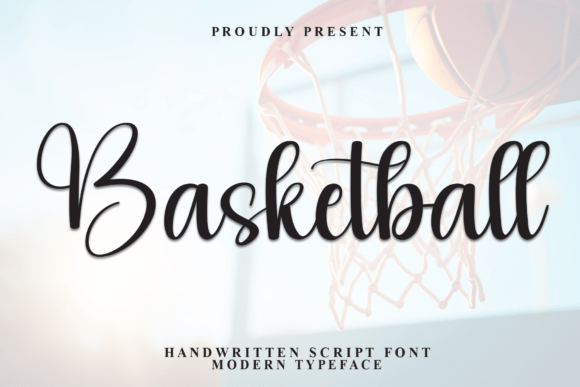
Unleash the Playfulness of Basketball Font in Your Designs
Have you ever been inspired by the sound of a basketball bouncing on the court, or the thrill of watching a slam dunk in slow motion? For designers, those moments can spark creativity and fuel our passion for crafting unique visual experiences. One way to capture that same energy and playfulness in our designs is by using a stylish handwritten script font – Basketball Font.
This elegant and charming font is perfect for adding a personal touch to invitations, branding, and social media. Its flowing curves and natural rhythm bring warmth, sophistication, and creativity to any project, making it a valuable tool for designers looking to elevate their work. With Basketball Font, you can infuse your designs with a sense of joy and spontaneity that’s hard to replicate with other fonts.
Basketball Font Key Features
- Font Family: Basketball Font is a unique, hand-drawn font designed specifically for sports and action-related graphics.
- Font Size: The font is designed to be highly legible at various sizes, with optimal results at 24-48 points for headings and 12-24 points for body text.
- Unique Characteristics: The font features bold, dynamic letterforms with a distinctive ‘swash’ style, perfect for adding a touch of sports-themed flair to designs.
Basketball Font Review
I recently had the chance to work with the “Basketball Font” and I have to say, it’s a mixed bag.
- Unique aesthetic: The font has a distinctive, playful feel that’s perfect for sports-related designs.
- Legibility: Despite its bold appearance, the font is surprisingly easy to read, even at smaller sizes.
- Flexibility: The font comes in a range of weights and styles, making it suitable for a variety of applications.
- Consistency: The font’s irregularities and quirks can make it feel inconsistent in certain contexts.
- Scalability: While legible at smaller sizes, the font can become blurry and difficult to read when enlarged.
- Limited language support: The font may not be optimized for languages with complex scripts or non-Latin characters.
Overall impression
While the “Basketball Font” has its charm, I think it’s best suited for niche applications where its unique aesthetic can shine. In more general design contexts, its limitations may outweigh its benefits. Still, it’s a fun font to work with, and with some careful consideration, it can add a lot of personality to your designs.
Basketball Font Practical Application Guide
Some popular use cases for the Basketball Font include:
– Creating sports-themed graphics and logos
– Designing athletic apparel and merchandise
– Creating engaging social media content
– Adding a touch of sports culture to your branding
Some tips for getting the most out of the Basketball Font include:
– Experimenting with different font sizes and styles
– Pairing the font with other sports-themed graphics and elements
– Using the font to create a cohesive brand identity